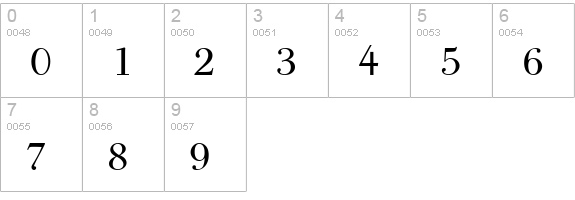
Bodoni Old Face BE Regular is the standard, neutral variant in the Bodoni typeface family \xE2\x80\x94 well suited to general body text, paragraphs, and standard typographic work.
Bodoni Old Face BE Regular font is a timeless and elegant typeface that exudes sophistication and refinement. With its classic serifs and graceful letterforms, this font is perfect for conveying a sense of luxury and tradition in your design projects. The clean lines and balanced proportions of Bodoni Old Face BE Regular make it highly versatile and suitable for a wide range of applications. What makes this font even more appealing is that it is available for free download at FontsMarket.com. By offering this exquisite typeface at no cost, designers can easily access and use Bodoni Old Face BE Regular to elevate their creations without any financial constraints. Whether you are working on branding, editorial design, or any other project that requires a touch of elegance, this font is a valuable addition to your toolkit. Download Bodoni Old Face BE Regular today and enhance your designs with its timeless beauty.